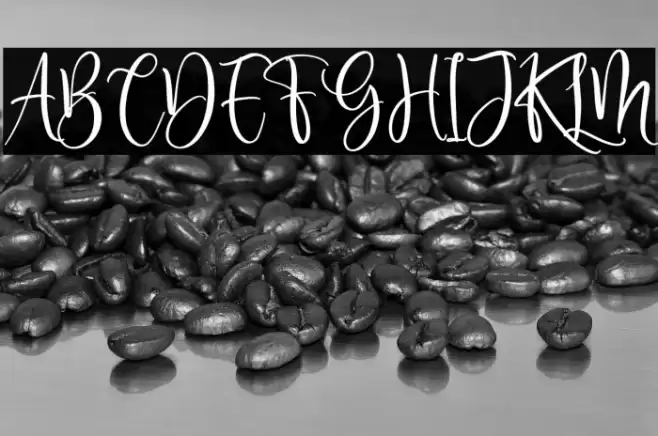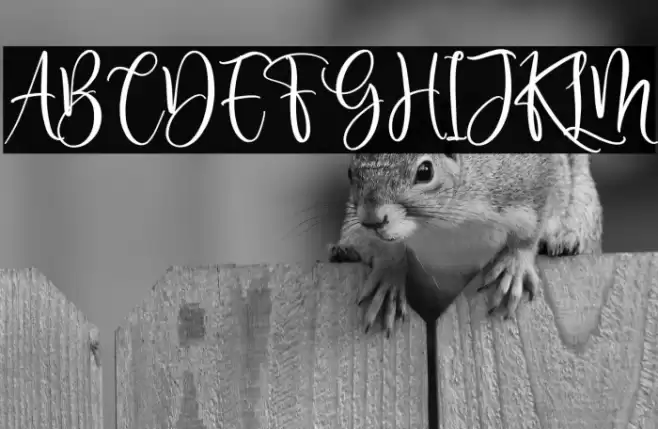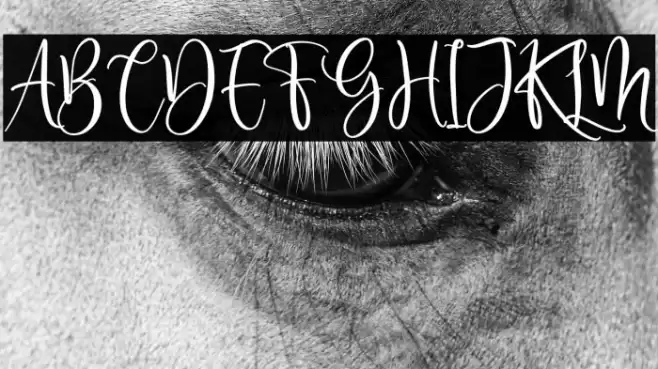
Delisha Glande Font
Delisha Glande Description
This font features an elegant and flowing script style with a modern twist. The uppercase letters are characterized by their tall, sweeping ascenders and descenders, giving them a sense of movement and grace. The lowercase letters maintain a consistent flow, with rounded forms and smooth connections between strokes. Numbers and special characters are designed to match the overall aesthetic, with a playful yet sophisticated appearance. The font's unique style makes it suitable for creative and expressive design projects, where a personal touch is desired.
A modern, elegant script font with flowing, graceful strokes from Uncategorized fonts.
- Font: Delisha Glande
- Proposed Projects: Ideal for wedding invitations, greeting cards, branding, and logo design.
- Overall Style: Modern, Decorative
- Use Case: Logos, Invitations, Decorative text